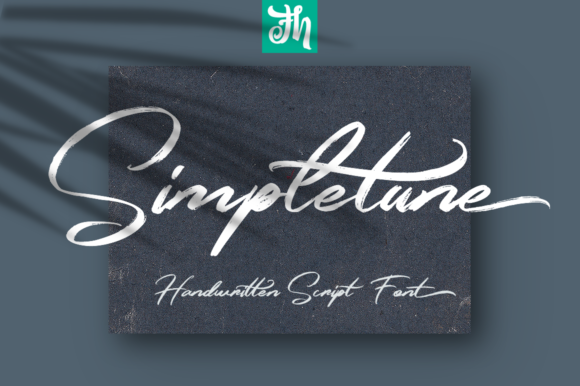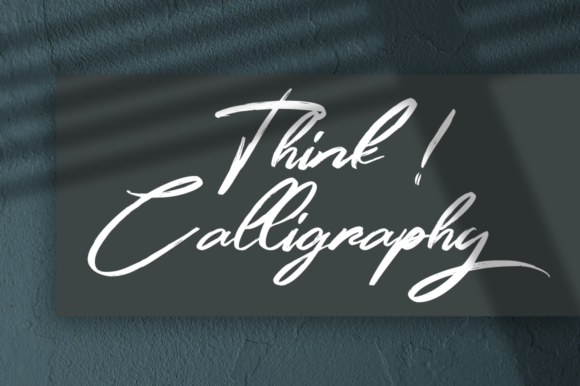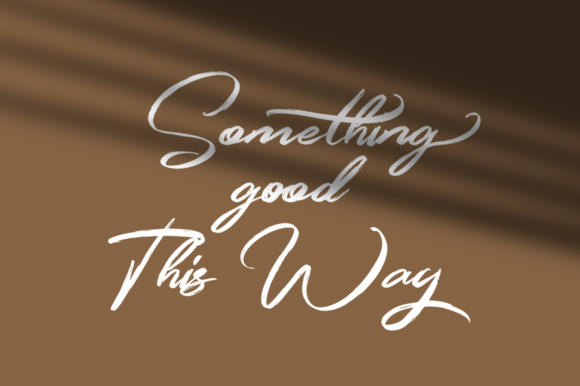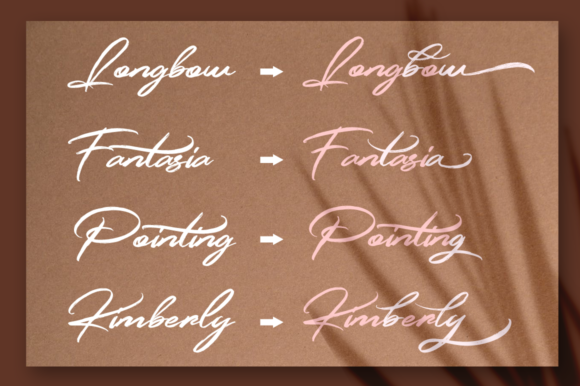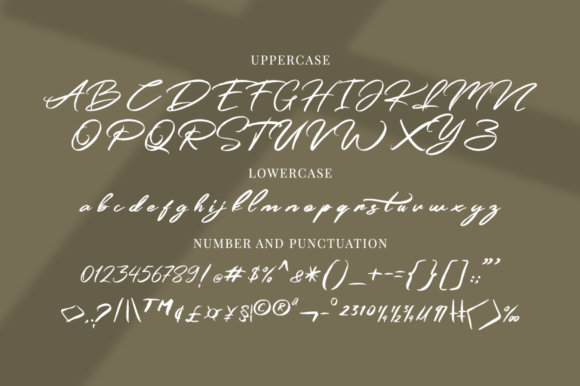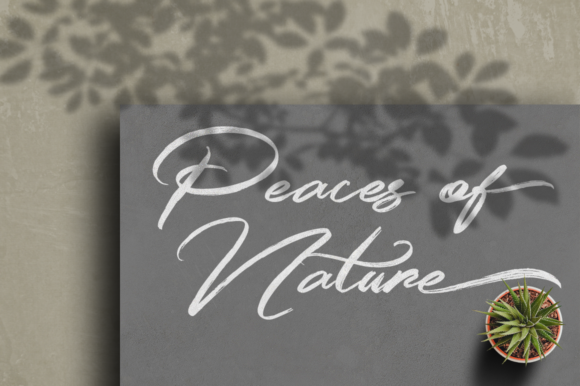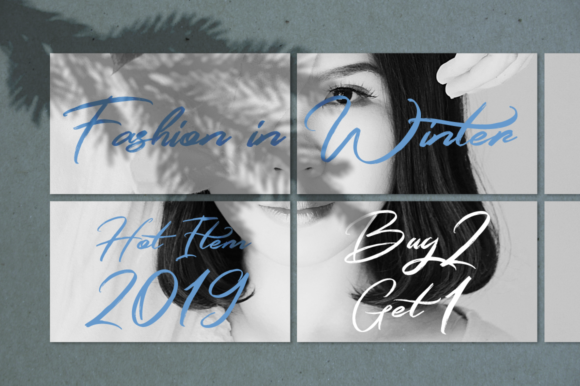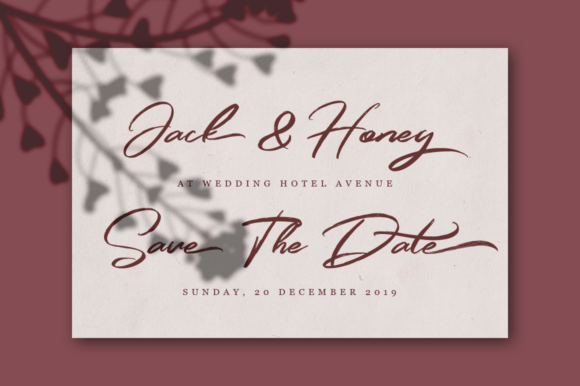
Simpletune Font
About Simpletune Font
Simpletune is a delicate handwritten typeface perfect for a variety of designs. Get inspired by its beautiful appearance!